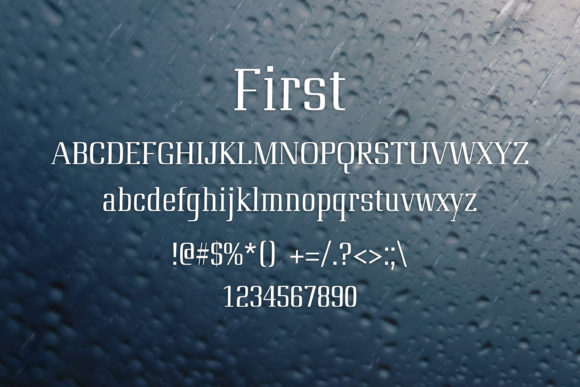
Introducing First Font: Elevate Your Designs with a Timeless and Versatile Typeface
In the world of design, typography plays a crucial role in conveying messages, expressing creativity, and capturing the audience’s attention. A well-chosen font can make or break a design project, which is why it’s essential to select a typeface that is both visually stunning and versatile. This is where the First Font comes in – a modern and slick display font that feels incredibly versatile due to its timeless look.
The Power of First Font: A Timeless Look
First Font is designed to turn any design project into a true standout. Its sleek and modern aesthetic makes it perfect for a wide range of applications, from branding and advertising to packaging and digital media. The font’s timeless look ensures that it won’t go out of style anytime soon, allowing you to create designs that will remain relevant for years to come.
What Makes First Font So Versatile?
So, what sets First Font apart from other display fonts on the market? Here are a few key features that contribute to its versatility:
- Clean Lines: First Font boasts clean lines and a minimalist aesthetic, making it perfect for designs that require a touch of sophistication.
- Modern Aesthetic: The font’s modern look ensures that your designs will feel fresh and contemporary.
- High Legibility: Despite its sleek design, First Font remains highly legible, even at smaller sizes.
- Flexible Styling: The font comes in a range of styles, allowing you to experiment with different looks and find the perfect fit for your design.
Use Cases for First Font
First Font is an incredibly versatile typeface that can be used in a wide range of design projects. Here are a few examples:
- Branding: Create a lasting impression with a custom logo or brand identity that showcases First Font’s sleek and modern aesthetic.
- Advertising: Use First Font to create eye-catching headlines and attention-grabbing copy that cuts through the noise.
- Packaging: Elevate your product packaging with a sophisticated and stylish font that reflects your brand’s values.
- Digital Media: First Font is perfect for digital media, including social media graphics, website headers, and more.
Tips for Getting the Most Out of First Font
To get the most out of First Font, here are a few tips to keep in mind:
- Experiment with Different Styles: Don’t be afraid to try out different styles and variations of First Font to find the perfect fit for your design.
- Pair with Other Fonts: First Font pairs well with a range of other fonts, so don’t be afraid to experiment with different combinations.
- Pay Attention to Kerning: To ensure that your text looks its best, pay close attention to kerning and adjust as needed.
In conclusion, First Font is a modern and slick display font that feels incredibly versatile due to its timeless look. With its clean lines, modern aesthetic, and high legibility, it’s the perfect choice for designers and crafters looking to elevate their designs. Whether you’re working on a branding project, advertising campaign, or packaging design, First Font is sure to turn your project into a true standout.